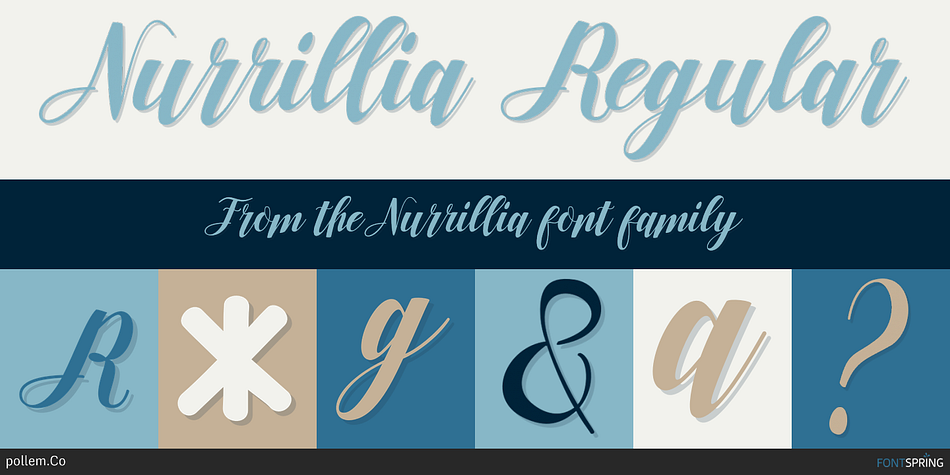
Nurrillia is a script and modern calligraphy font published by pollem.Co.
Nurrillia is a hand drawn script font. It has a varying baseline. This freestyle font is unique form of calligraphy and is very suitable for modern design.
The Features of this fonts are:
* Standart ligatures
* Stylistic Alternates
* Stylistic sets
* PUA Unicode (Private Use Areas)
* Swashed alternates
Nurrillia can be used for various purposes such as headings, logos, wedding invitations, t-shirt design, letterheads, lables, news, posters, badges etc.